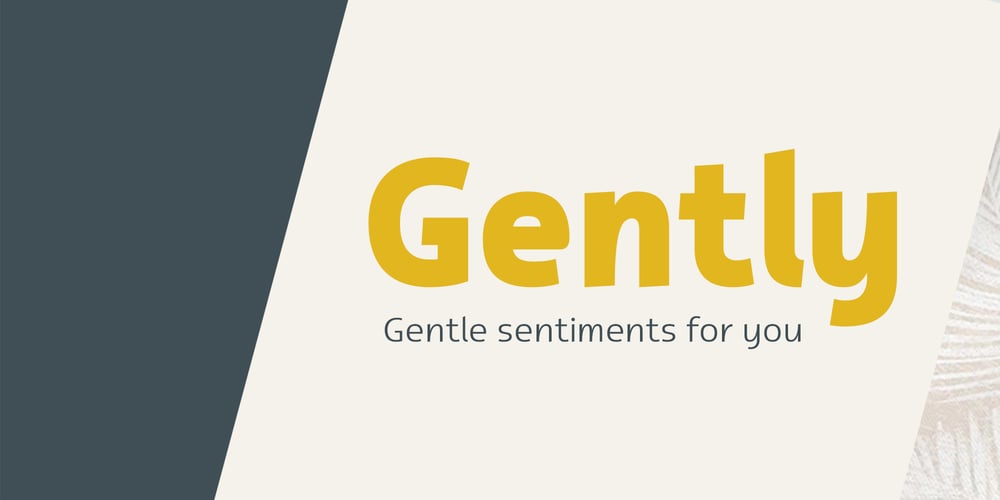
ZF Gently
ZF Gently font
ZF Gently Font Family was designed by joo-hong Kim and published by ZooFont. ZF Gently contains 9 styles and family package options. Gently, newly released by ZooFont, is a sans serif typeface that harmoniously combines straight lines and curves in a clean form.The stable form, which has its origins in handwriting, and the look of analog sensibility are enough to inspire confidence.Gently has a total of 9 weights, so it can be used freely anywhere, from body text to headlines.In addition, the height of the letters is economically calculated to achieve a reasonable line spacing, ensuring comfortable readability in various digital media.A cool breeze blows, a soft smile spreads across your lips,When I’m with you, the love in my heart seems to awaken.Your sweet whispering voice makes my heart flutter.Gently has the following features: 9 weights (from Ultra light to Ultra Black) extended latin 450+ glyphs fixed width numbers The Latin extension offers more than 130 languages with extensive multilingual Latin support for Western, Central, and Southeastern Europe.